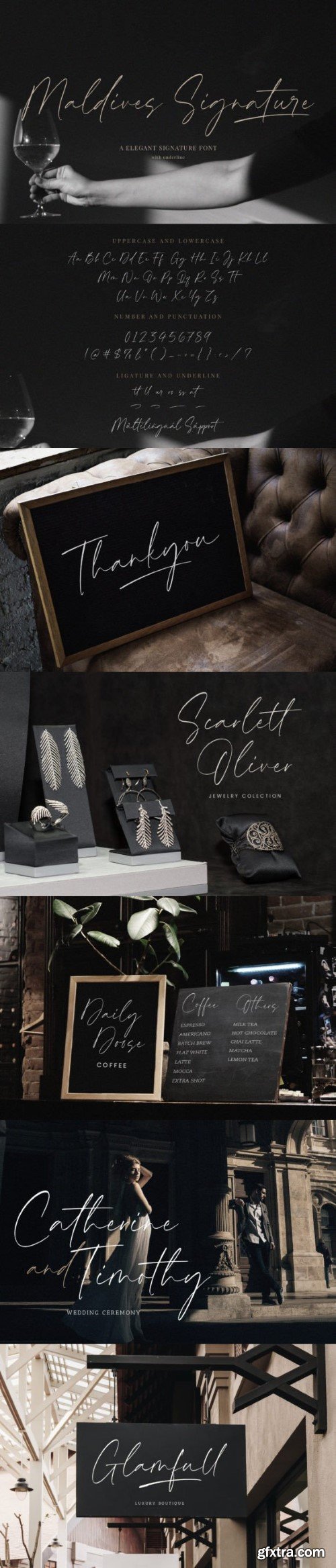
马尔代夫签名字体
Maldives Signature is a dazzling script font. This font is neatly crafted and highly detailed. Whatever the topic, this font will be a wonderful asset to your font library, as it has the potential to enhance any creation.